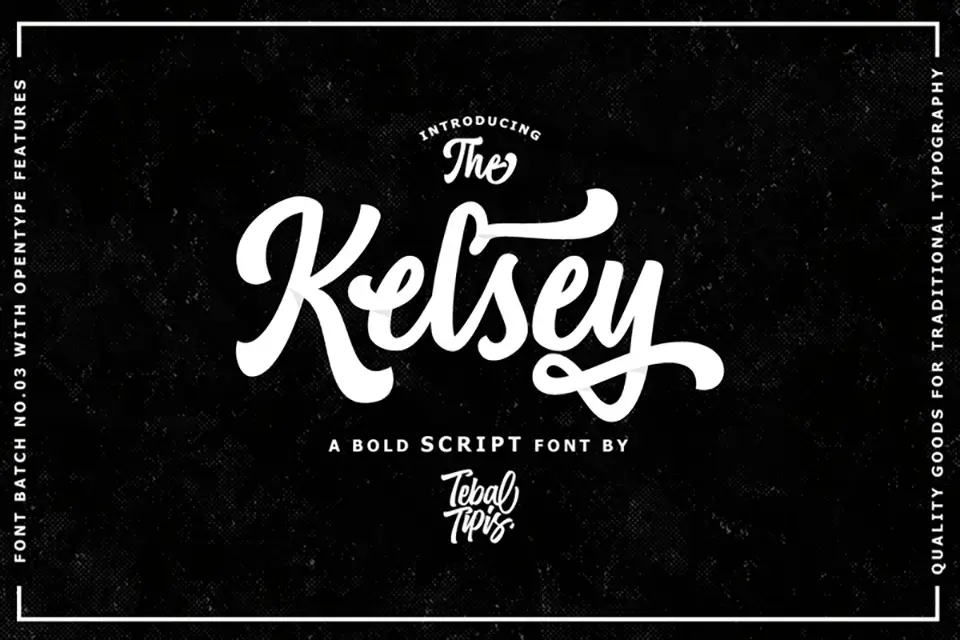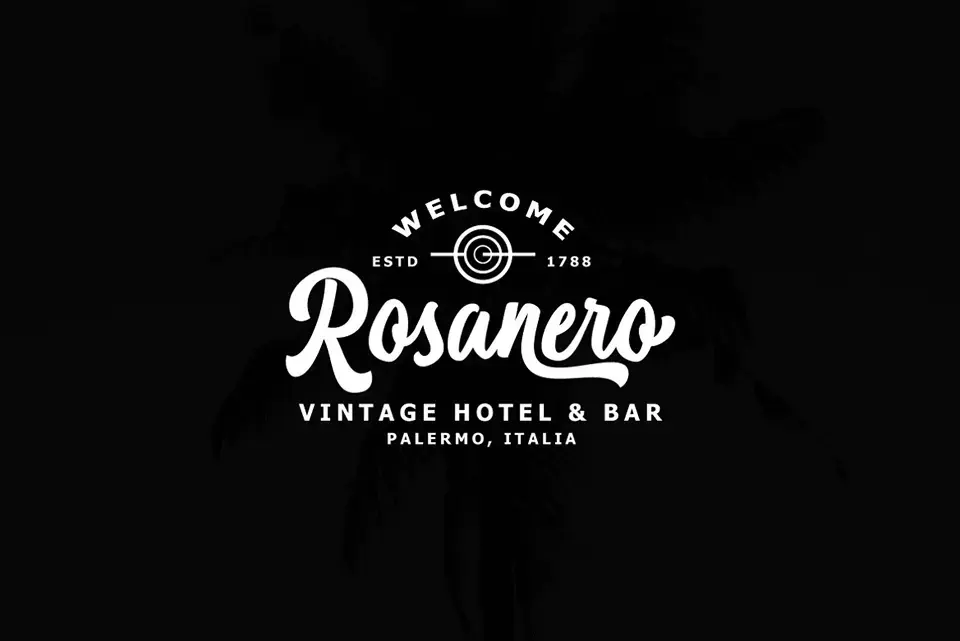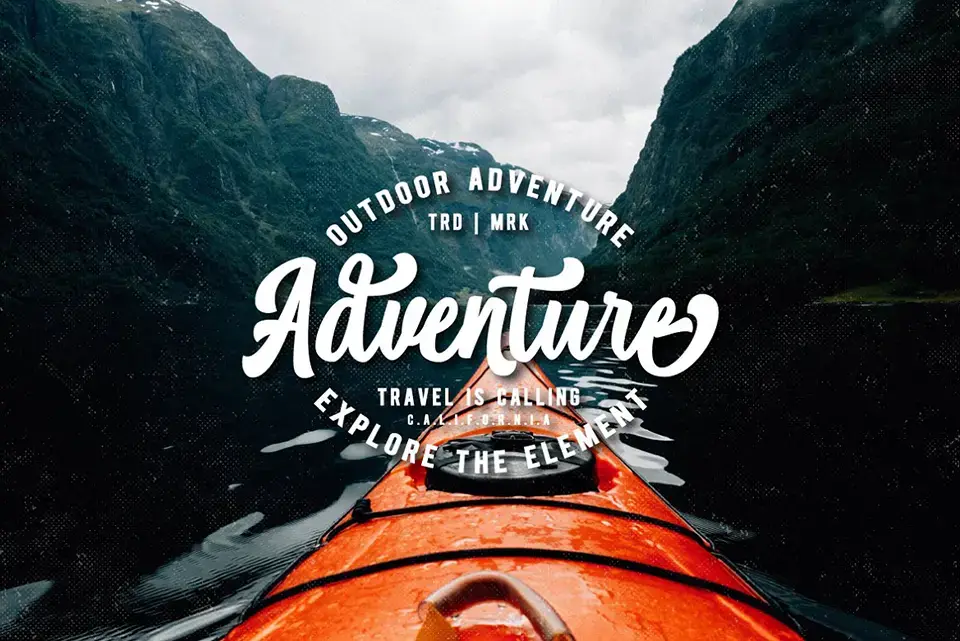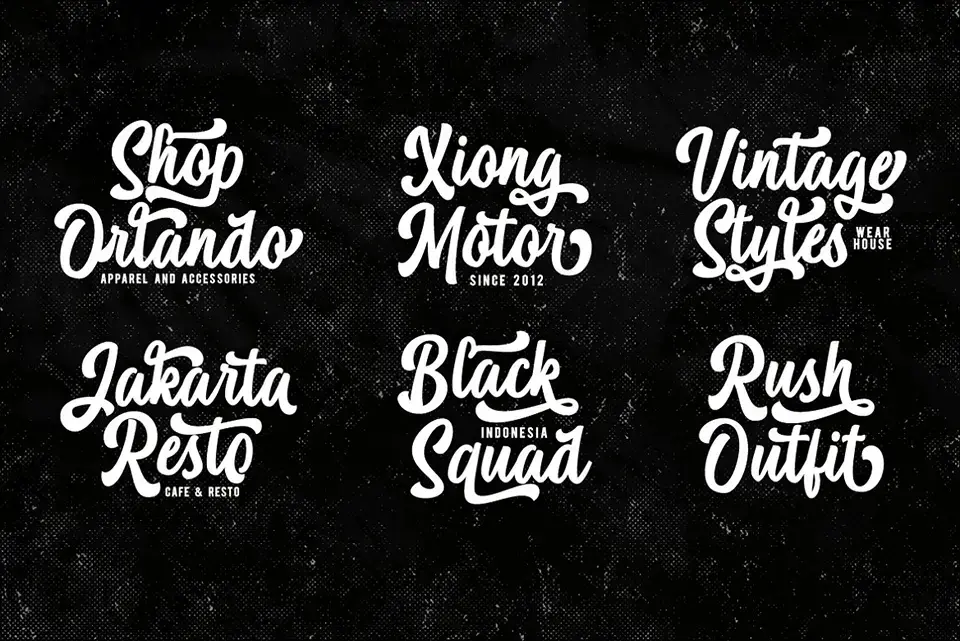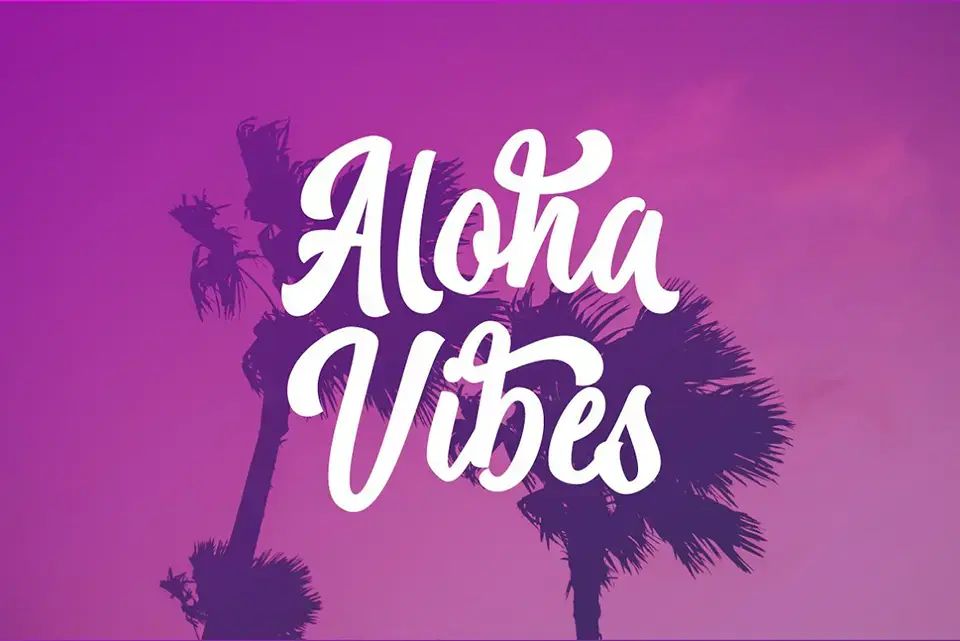
Kelsey Script Font
Kelsey Script brings an energetic, old-school vibe to the table with its confident strokes and sweeping curves. Designed by Tebaltipis Studio, this retro-inspired typeface features a thick, dynamic structure that naturally flows like authentic hand-lettering. Its bold weight and tight spacing make it a standout option for crafting striking vintage logos, eye-catching packaging, and impactful social media graphics where you need a strong visual presence. However, this typeface leans heavily into its decorative nature, so it may struggle with legibility in long paragraphs or small body text. If you enjoy the classic charm of vintage baseball scripts or mid-century signage, Kelsey Script offers a fantastic, practical alternative that immediately commands attention.
Vintage logo design and branding
Eye-catching product packaging
Dynamic social media graphics
Retro-themed sports merchandise
Lengthy paragraphs or small body text
Formal corporate documents
Clean minimalist user interfaces
Perfect for branding, logo, and packaging, with a bold and decorative style.